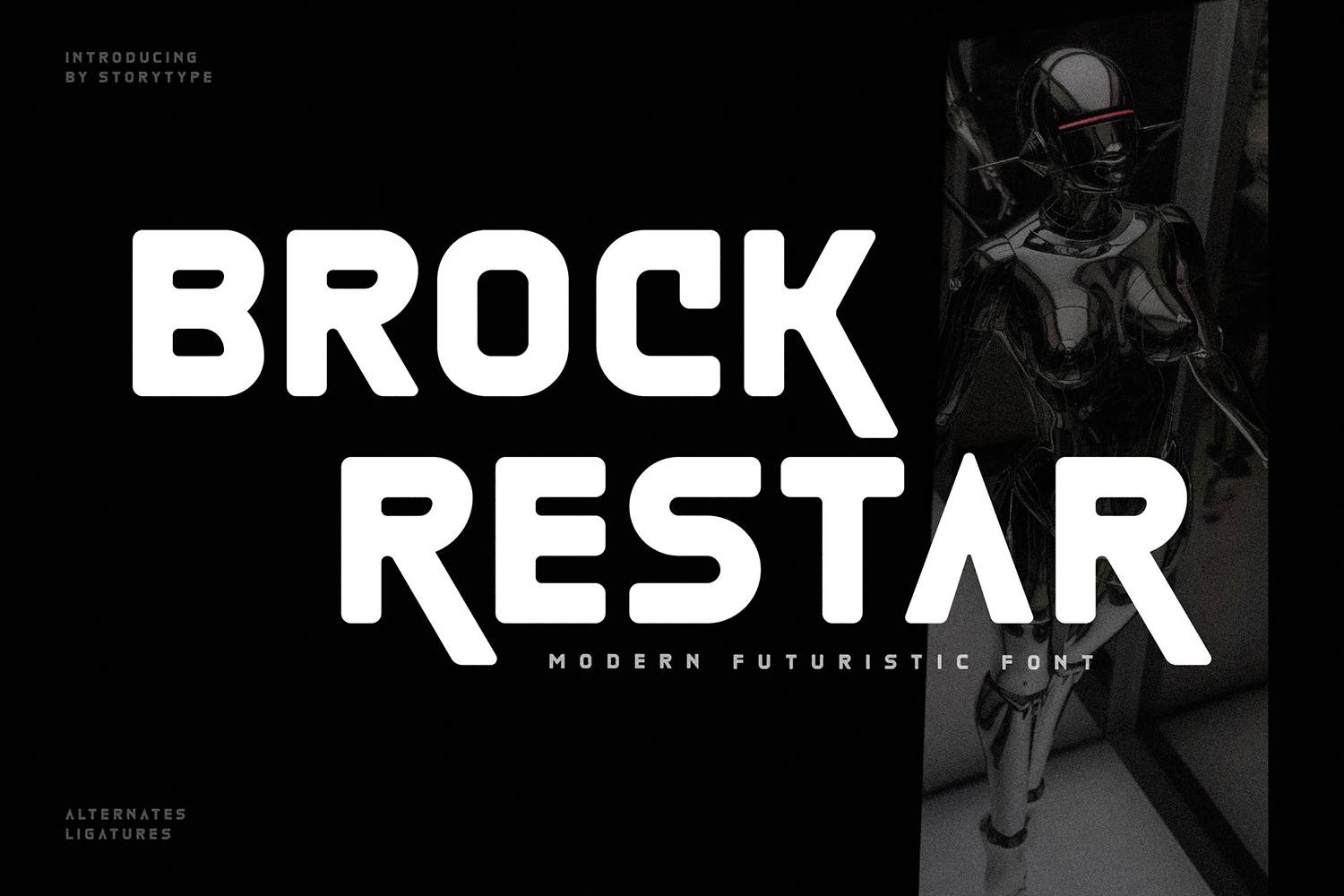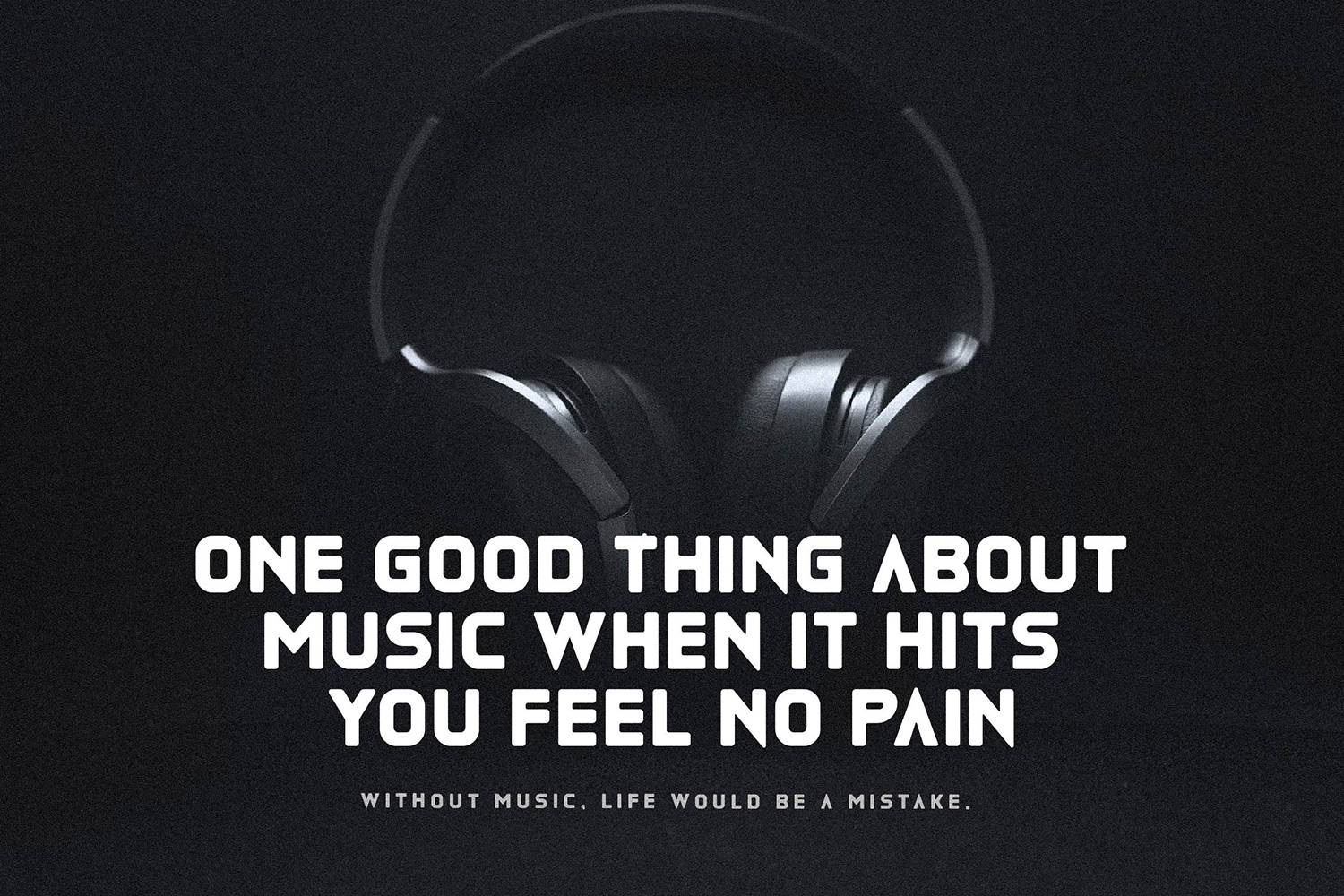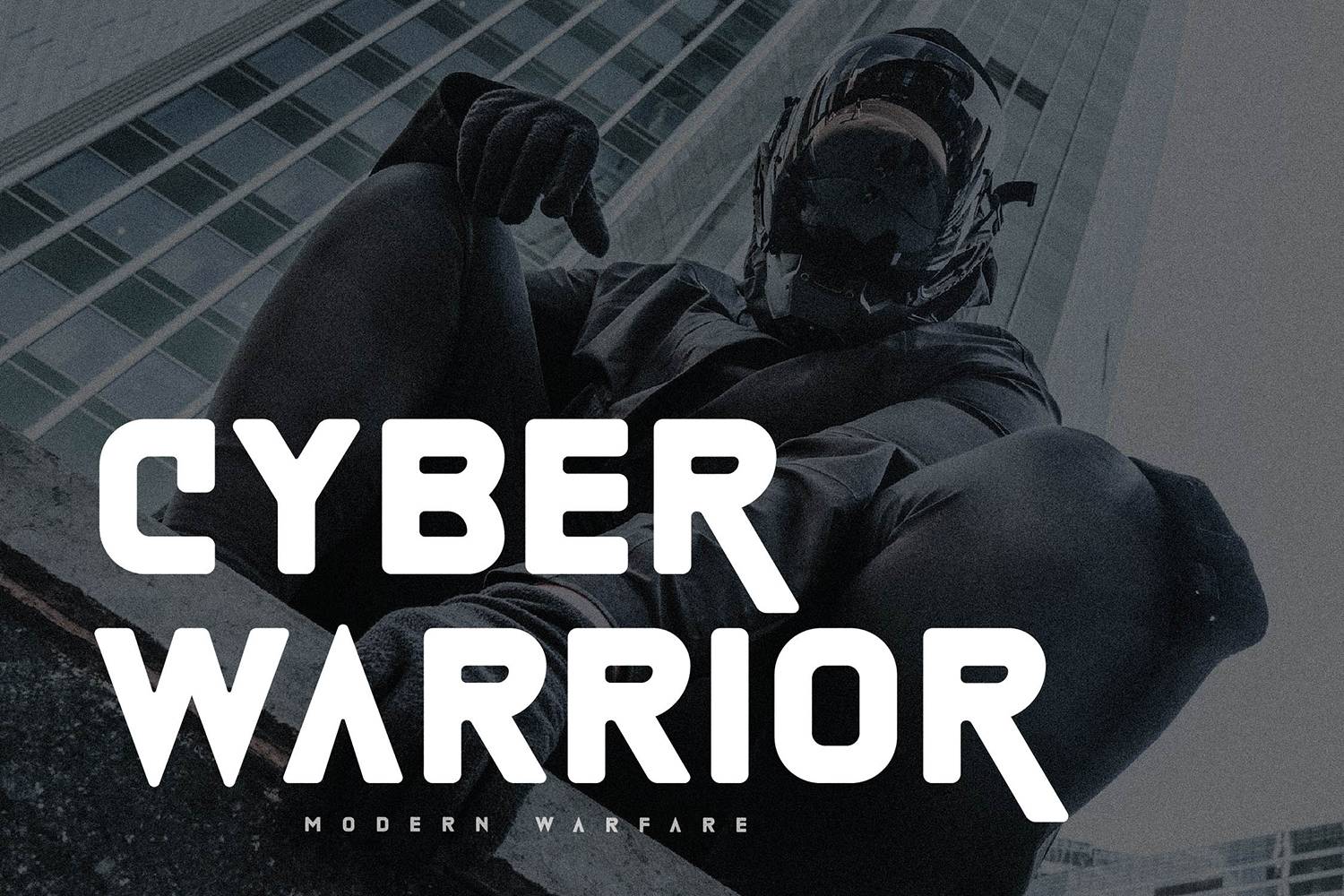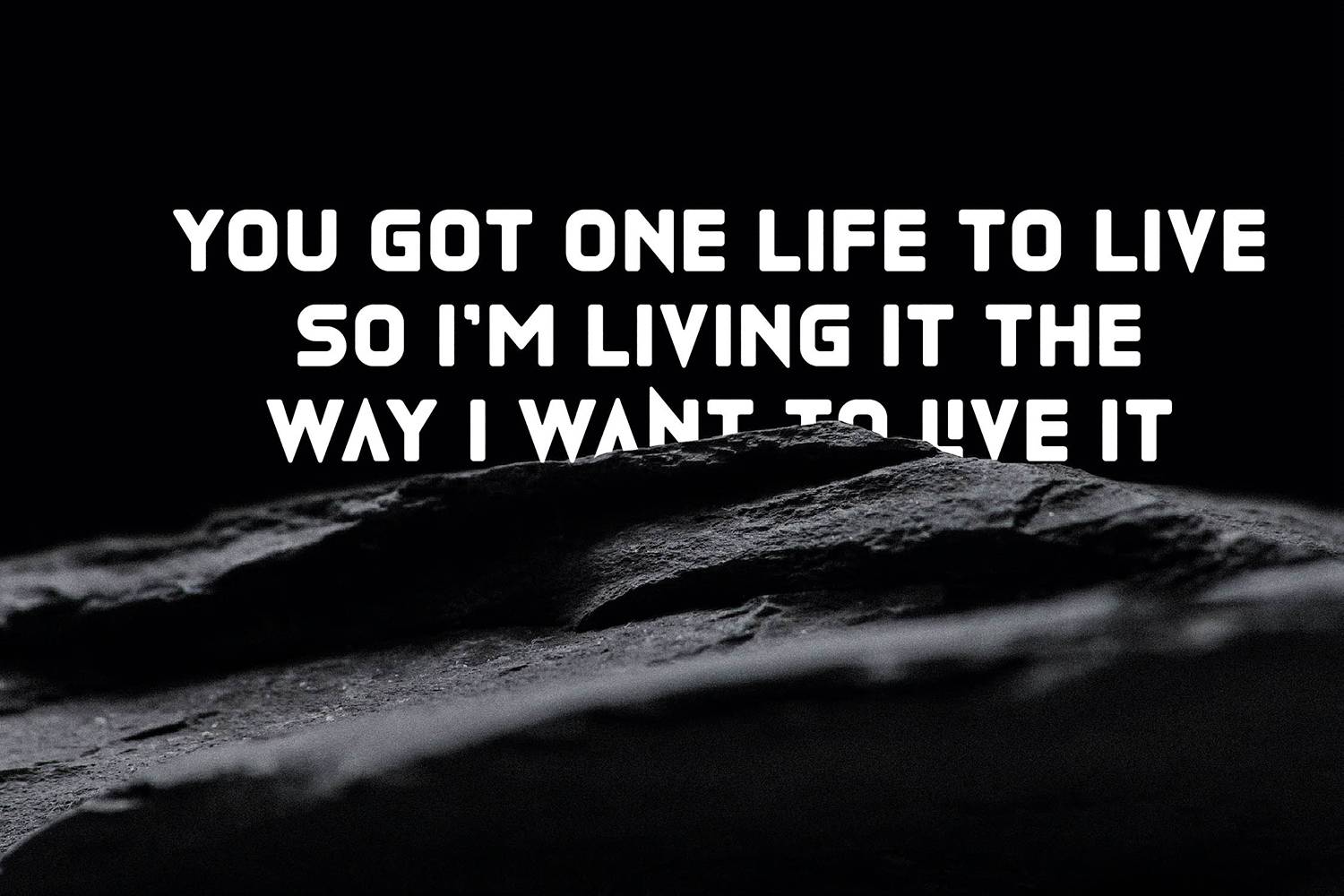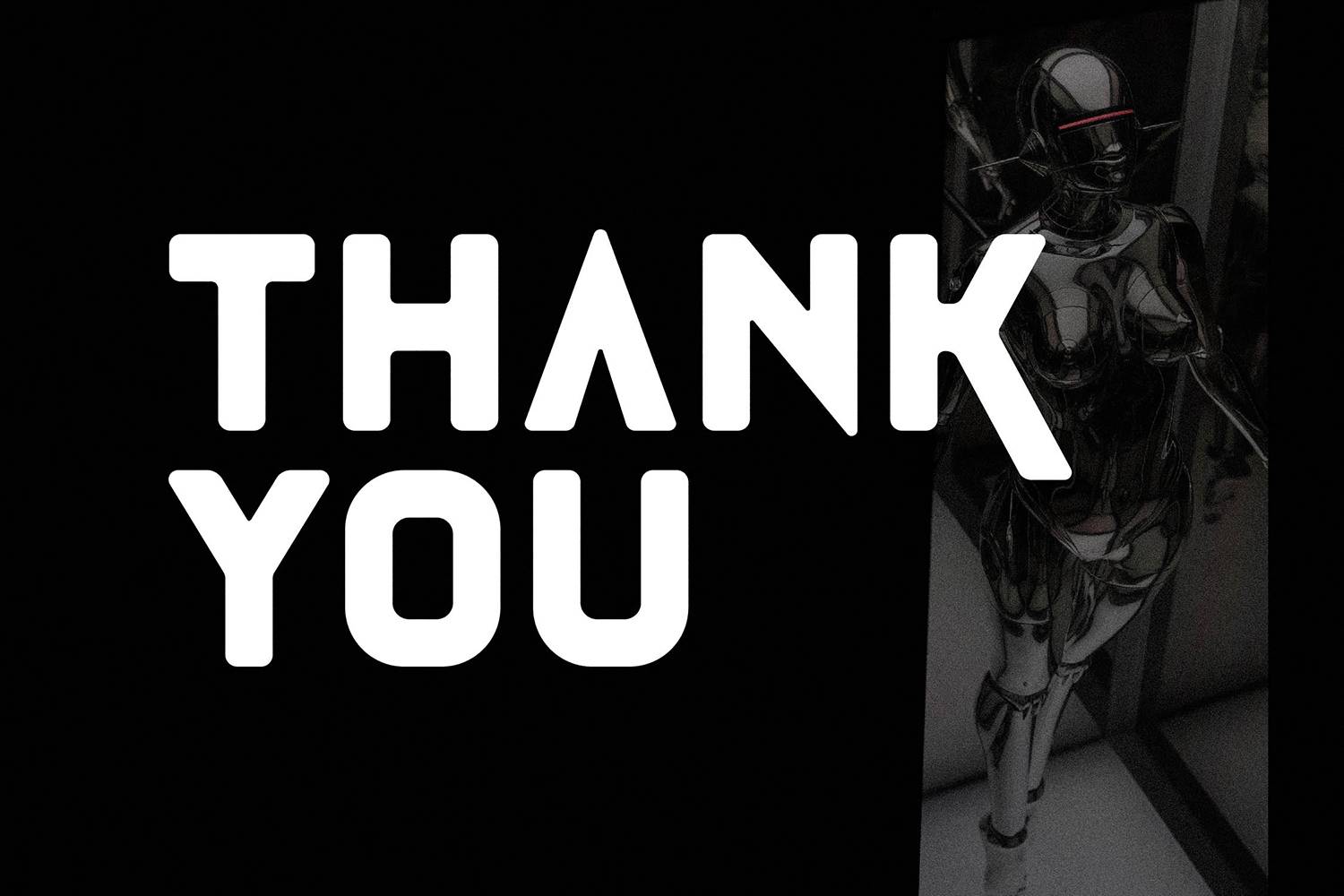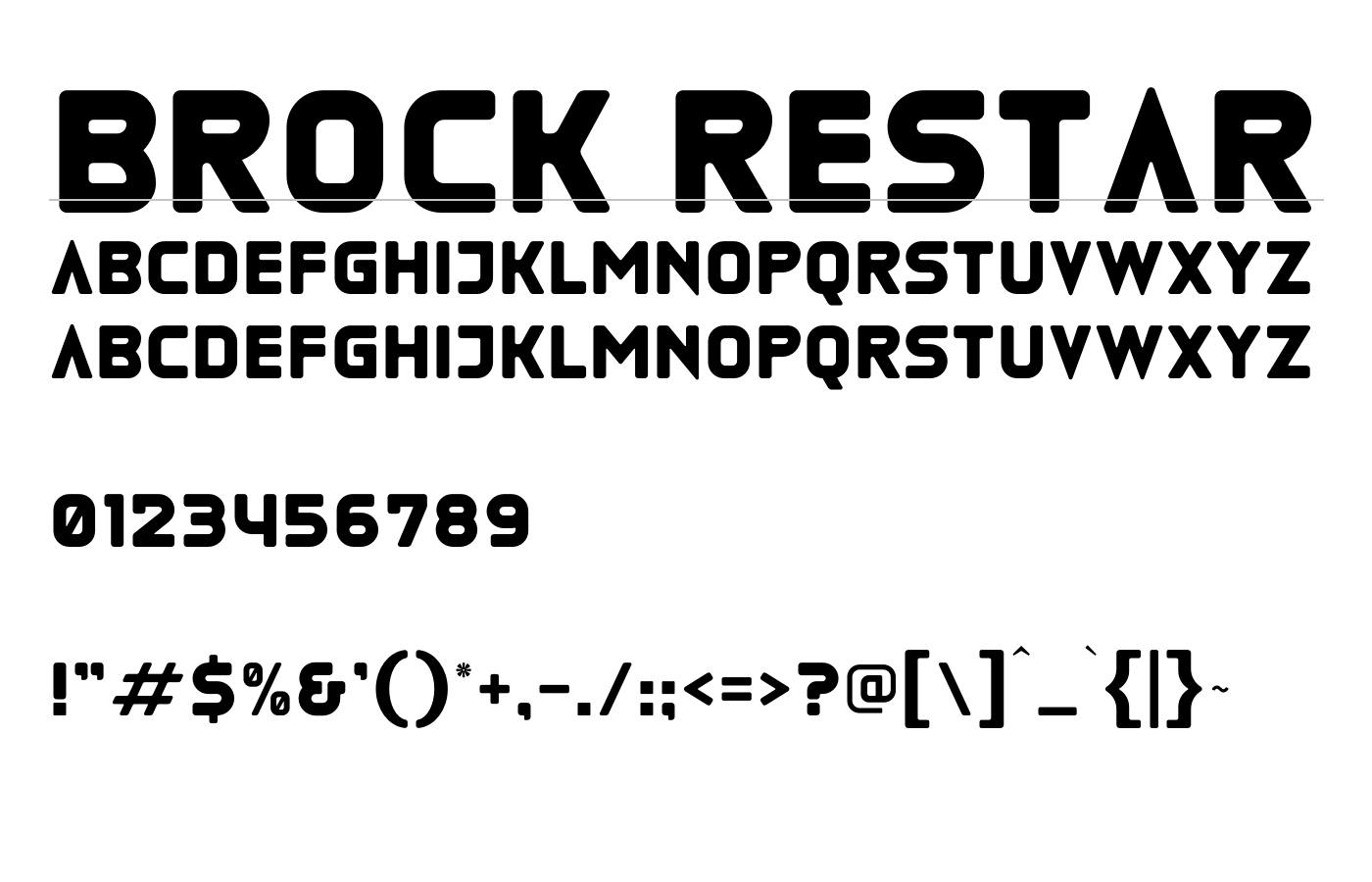
Brock Restar is a bold, geometric sans serif font with a strong, modern personality. Its wide letterforms and uniform stroke weight give it a sturdy and approachable appearance, while distinctive details like angled cuts and the stylized "A" add a unique, contemporary flair. This font works well for headlines, logos, and branding projects that seek to convey confidence and a forward-thinking vibe.
Brock Restar Font